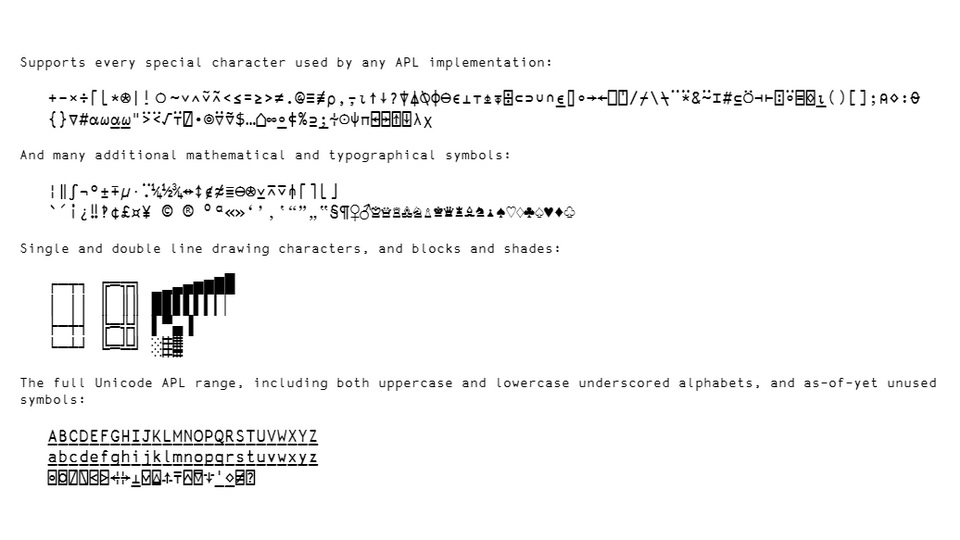
APL386 Unicode is APL font based on Adrian Smith’s APL385 font with a fun, whimsical look, inspired by Comic Sans Serif.
Supports every special character used by any APL implementation and many additional mathematical and typographical symbols, single and double line drawing characters, and blocks and shades.
It also supports the full Unicode APL range, including both uppercase and lowercase underscored alphabets, and as-of-yet unused symbols, extensive set of accented Latin letters, Cyrillic and Greek.